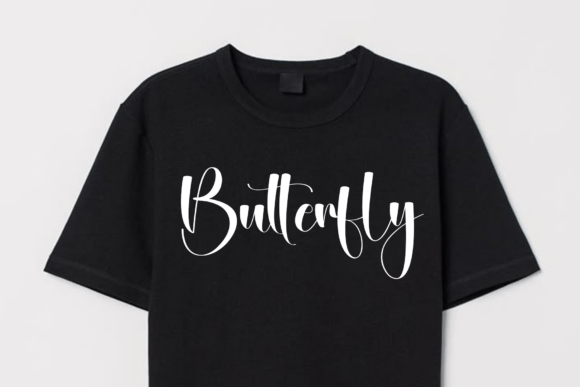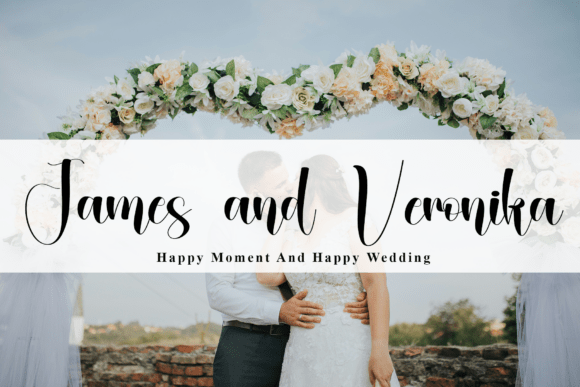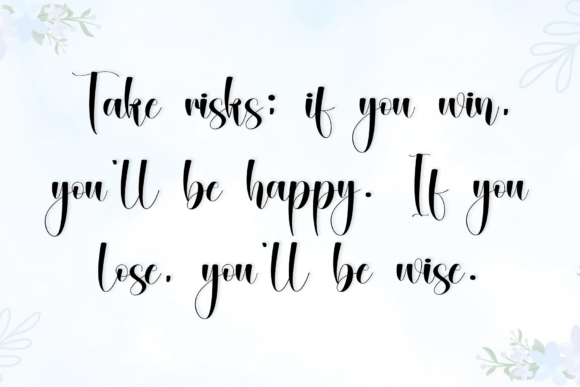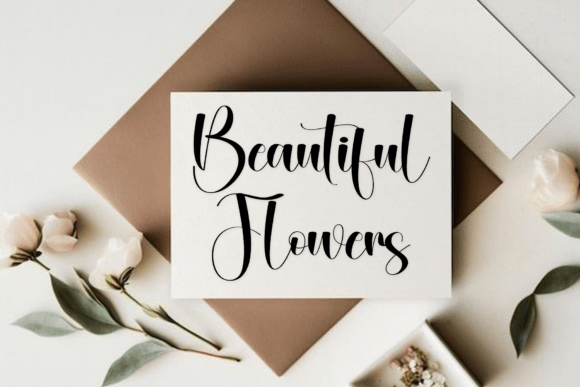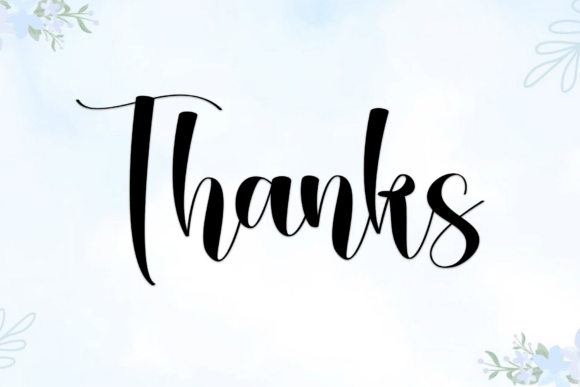
Introducing Authentic1 Font: Elevate Your Design with Elegance and Sophistication
In the realm of typography, few fonts manage to strike a balance between elegance, sophistication, and modernity. Authentic1 Font is one such exceptional typeface that embodies these qualities, making it a perfect choice for designers and crafters looking to add a touch of luxury and charm to their projects. This modern script typeface is not just a font; it’s an experience that brings to life the spirit of celebratory handwriting with a contemporary twist.
The Essence of Authentic1 Font
Authentic1 Font is characterized by its graceful curves and refined letterforms. One of its defining features is the tall, expressive ascenders and generous loops that add a fluid, dynamic quality to the text. These elements, combined with fluid connections between letters, create a harmonious flow that is both visually appealing and highly legible. Whether you’re working on a wedding invitation, a luxury brand logo, or a high-end product packaging, Authentic1 Font provides the perfect aesthetic to convey sophistication and elegance.
A Dance of Contrasts: Bold and Delicate
One of the most striking features of Authentic1 Font is the captivating contrast between bold downstrokes and delicate upstrokes. This contrast creates a rhythmic dance of light and shadow, adding depth and character to the text. This duality not only makes the font decorative but also ensures it remains highly legible across various applications. The boldness of the downstrokes gives the font its assertive presence, while the delicacy of the upstrokes adds a whisper of subtlety and grace.
Creative Freedom with PUA Encoding
Authentic1 Font takes creativity to the next level with its full PUA (Private Use Area) encoding. This feature provides designers with seamless access to the font’s complete set of glyphs, swashes, and alternates. With PUA encoding, designers have the creative freedom to craft elegant and personalized typography with ease. Whether you’re looking to add a unique swash to a letter, alternate between different letterforms, or simply want to ensure consistency across your design, Authentic1 Font’s encoding makes it all possible.
Authentic1 Font is a versatile typeface that caters to the needs of both designers and crafters. For designers, it offers a professional and elegant solution for projects that demand a high level of sophistication. Its legibility and decorative elements make it ideal for branding, advertising, and marketing materials. For crafters, particularly those involved in DIY projects, crafting, and scrapbooking, Authentic1 Font provides a beautiful and personal touch to handmade cards, invitations, and decorations.
Tips for Using Authentic1 Font
- Pair with Neutrals: For maximum impact, pair Authentic1 Font with neutral fonts that complement its elegance without overpowering it.
- Play with Swashes: Take advantage of the font’s swashes and alternates to add a personal touch to your designs.
- Adjust Letter Spacing: Experiment with letter spacing to enhance the fluidity and flow of the text.
- Use in Large Sizes: Authentic1 Font shines in large sizes, making it perfect for headings, titles, and display texts.
Authentic1 Font is more than just a typeface; it’s a statement of elegance, sophistication, and modernity. Its unique blend of traditional charm and contemporary style makes it a valuable asset for designers and crafters alike. With its graceful curves, expressive ascenders, and fluid connections, Authentic1 Font brings a touch of luxury to any project. Whether you’re designing a brand logo, crafting a handmade card, or creating a stunning invitation, Authentic1 Font is your gateway to creating visually captivating and highly personalized typography.
Embrace the beauty and versatility of Authentic1 Font in your next project and discover the difference it can make in elevating your designs to new heights of elegance and sophistication.